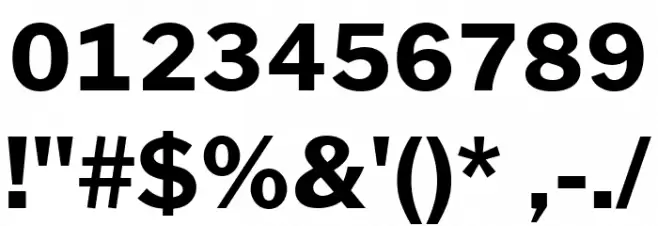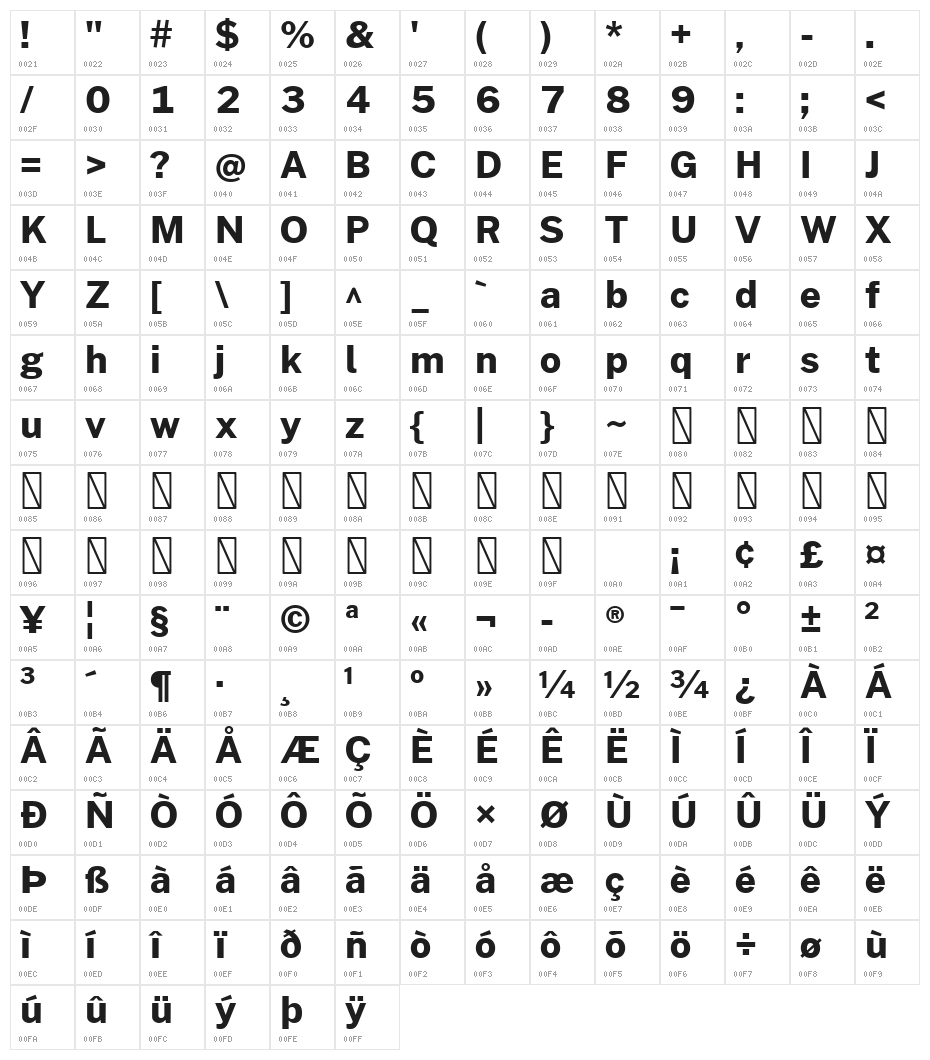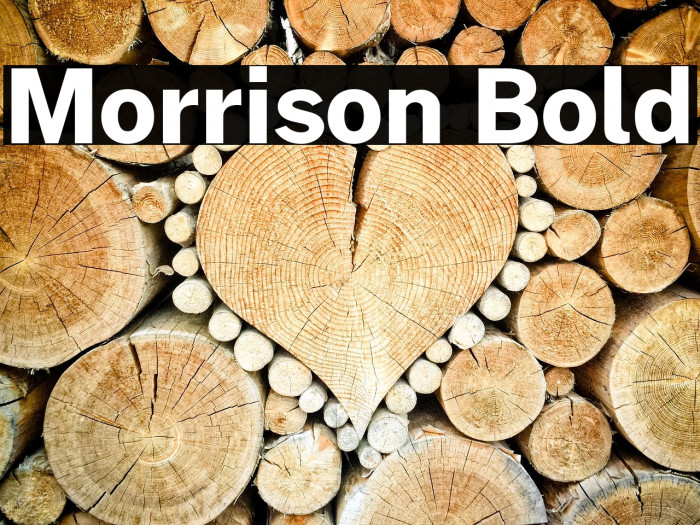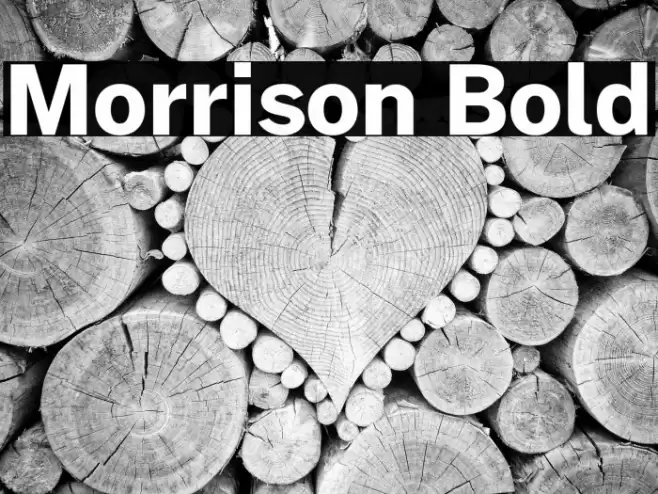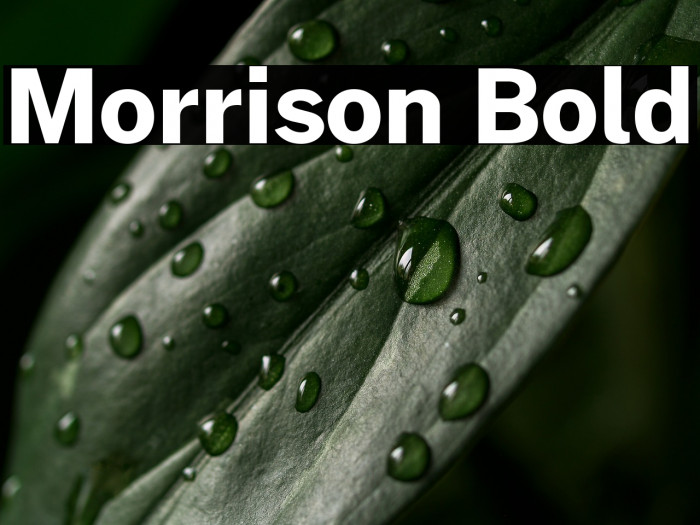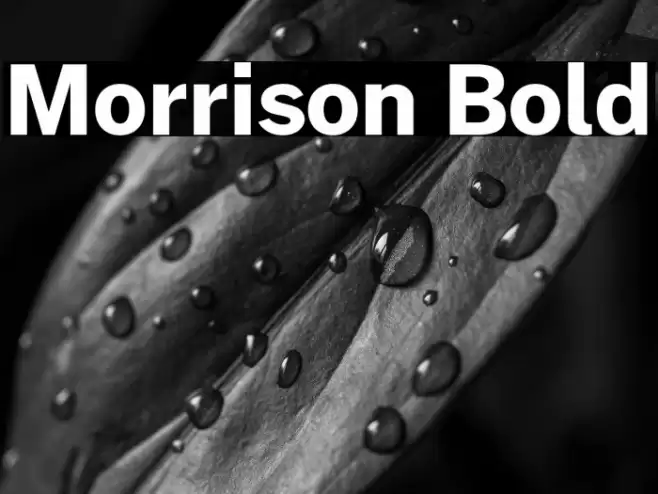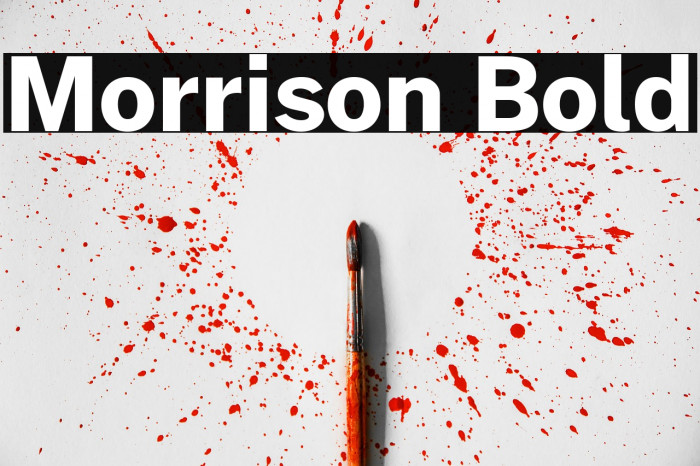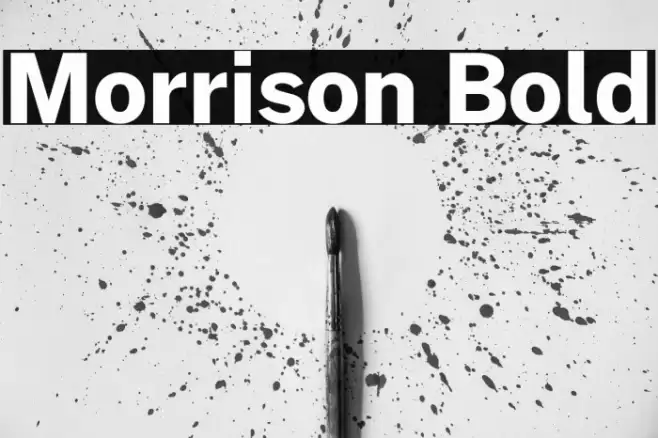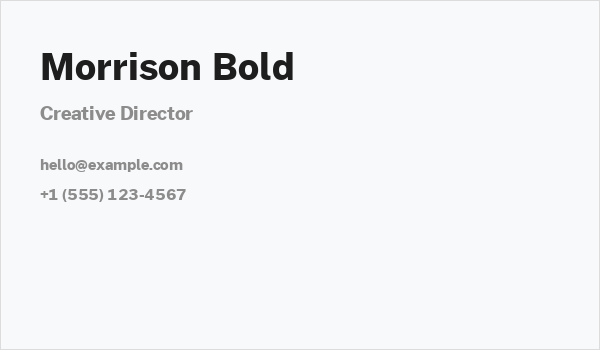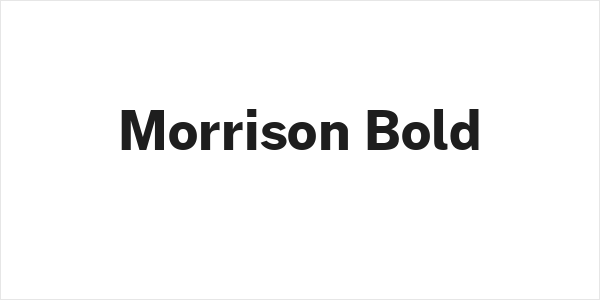
Morrison Bold Font
Morrison Bold Description
This font features a bold and assertive style, characterized by thick strokes and a strong presence. The uppercase letters are uniform and balanced, providing a sense of stability and confidence. The lowercase letters maintain a consistent weight, ensuring readability and clarity. The numerals are robust and easily distinguishable, making them suitable for various applications. Special characters are well-defined, adding versatility to the font's usage. Overall, this font exudes a modern and professional aesthetic, ideal for making impactful statements.
| Proposed Projects | Ideal for branding, headlines, posters, and any project requiring a bold statement. |